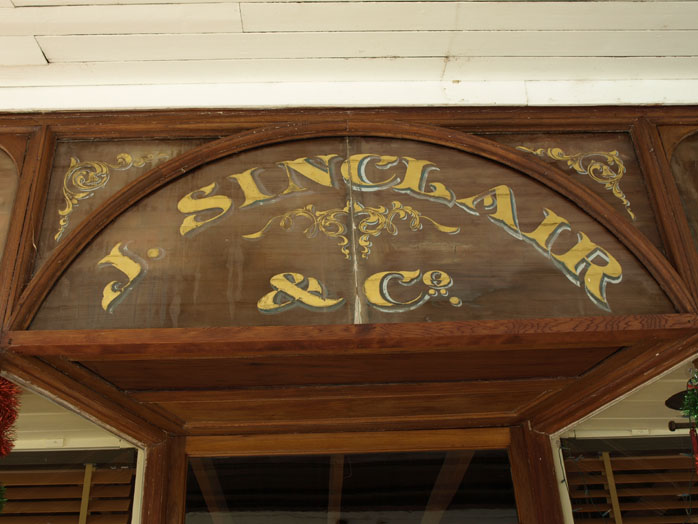
I came across this shop during a day trip of small gold mining towns in central Victoria. This shop was an amazing find about 2 hours drive from Melbourne.
Originally set up by J. Sinclair and Co., the building called London House, is at 39 Fryers Street, Guildford. The original sign remained intact because it is bricked in from behind and it's not possible to get to the back of the glass unless it is removed. The new owners stripped back the old paint on the outside of the glass to reveal the original gold leaf signs hidden for maybe 100 years by subsequent overpainting outside. It now runs as a gallery.
The building was established 1856 which makes it surely one of the earliest shops to use such large plate glass windows. This size of glass isn't common in shops of this age as making it was a new technology and was very expensive. It is typically seen in shops 20+ years younger. Apparently the business also imported glass. Mr Sinclair was making a big statement with this shop and the signs match the importance of the business.
The transom glass signs in gold leaf with decorative scrollwork and split shade of turquiose blue and light grey. The left side, getting the most sun is damaged, but the rest is in remarkably good condition for it's age despite some evidence of water damage.
From left: Mens. clothing. / Drapery. / Boots. & shoes. / J. Sinclair & Co. / Grocery. / Ironmongery. / Crockery.
(The signwriter must have liked full stops)
Note also side panel reading "Money order Office", and early photo of building from Victorian era.
Hey nice find Bruce ...It's great when you come across this type of work and to think it lasted this length of time.
"Under all this paint, there HAS to be a gold sign somewhere!!"
What a Treasure! Thank goodness they don't tear down everything.
Love that letterstyle. Something that used to be seen quite often on establishments.